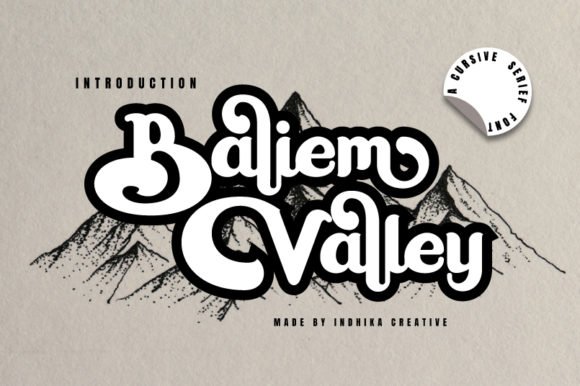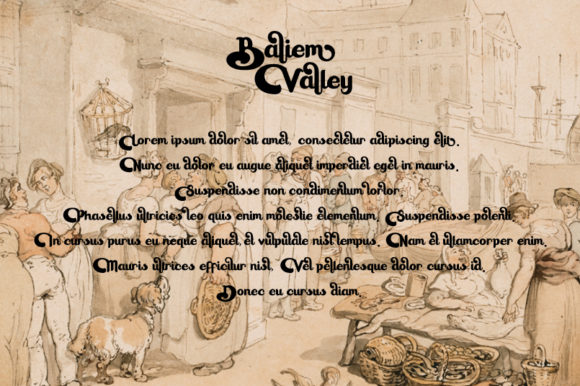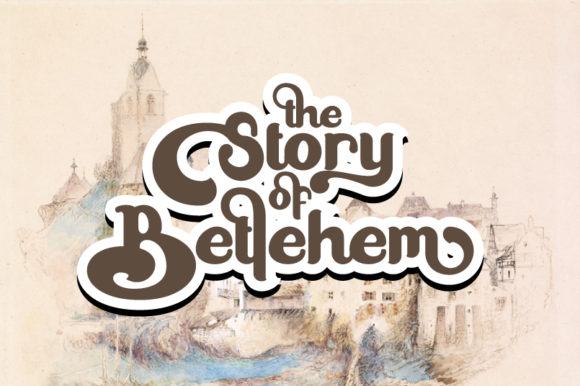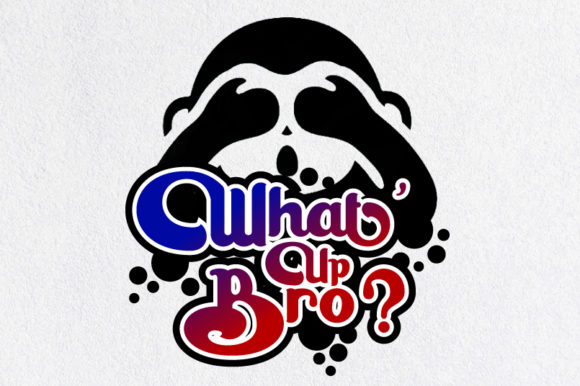
Discover the Timeless Charm of Baliem Valley Font
Remember that moment when you stumble upon a vintage treasure in a thrift store or antique shop, and you just can’t help but imagine the stories it could tell? For designers, that feeling is often recreated when they discover a font that perfectly captures the essence of a bygone era. The Baliem Valley Font is one such find, offering a unique blend of retro flair and modern sophistication.
This original display font is designed to evoke the sense of adventure and exploration, making it perfect for crafty ideas like letterheads, titles, and stationery. With its cool, retro style, the Baliem Valley Font is an invaluable addition to any designer’s toolkit, allowing them to add a touch of nostalgia and whimsy to their projects.
Baliem Valley Font Key Features
- Font Family: Baliem Valley Font is a unique, hand-drawn font family designed to evoke the spirit of the Baliem Valley in Papua, Indonesia.
- Character Set: Includes a wide range of characters, including uppercase and lowercase letters, numerals, punctuation marks, and special characters.
- Unique Characteristics: Features a distinctive, hand-drawn style with intricate details and subtle texture, giving it a unique and authentic feel.
- Font Style: Available in both regular and bold styles, allowing for flexibility in design applications.
Baliem Valley Font Review
I recently had the chance to work with the Baliem Valley Font, and I must say it’s a unique addition to any design project. ✨
Here are some aspects that I think work well:
- Its organic, hand-drawn feel adds a touch of warmth and character to any design. ✨
- The font’s irregularities and imperfections make it perfect for projects that need a more human, less robotic feel. ✨
- The Baliem Valley Font is highly legible, making it suitable for a wide range of text-based applications. ✨
- The font’s irregularities can sometimes make it difficult to read, especially in smaller sizes. ⚠️
- The Baliem Valley Font may not be the best choice for projects that require a high level of precision or uniformity. ⚠️
Overall, I think the Baliem Valley Font is a great choice for designers who want to add some personality and character to their work. While it may not be the best fit for every project, it’s definitely worth considering for those that need a more unique and human touch.
Tips for Getting the Most Out of Baliem Valley Font
Here are some tips to get the most out of Baliem Valley Font:
- Use Baliem Valley Font for cultural or tribal-inspired designs.
- Pair Baliem Valley Font with other bold and exotic fonts for a unique look.
Baliem Valley Font is commonly used for:
- Cultural or tribal-inspired designs.
- Exotic or adventure-themed designs.
- Travel or tourism-related designs.
- Use the font for the title and headings to emphasize the cultural significance of the content.
- Pair the font with traditional Papuan patterns and motifs to create a visually striking design.
- Use earthy tones such as green, brown, and beige to reflect the natural surroundings of the Baliem Valley.
- Combine the font with hand-drawn illustrations or photographs to add a personal touch.
- Use the font for headings and subheadings to emphasize the importance of responsible tourism.
- Pair the font with images of the region’s stunning natural landscapes to create a visually appealing design.
- Use a color scheme that reflects the region’s natural beauty, such as shades of green and blue.
- Combine the font with simple, clean layouts to convey a sense of eco-friendliness.